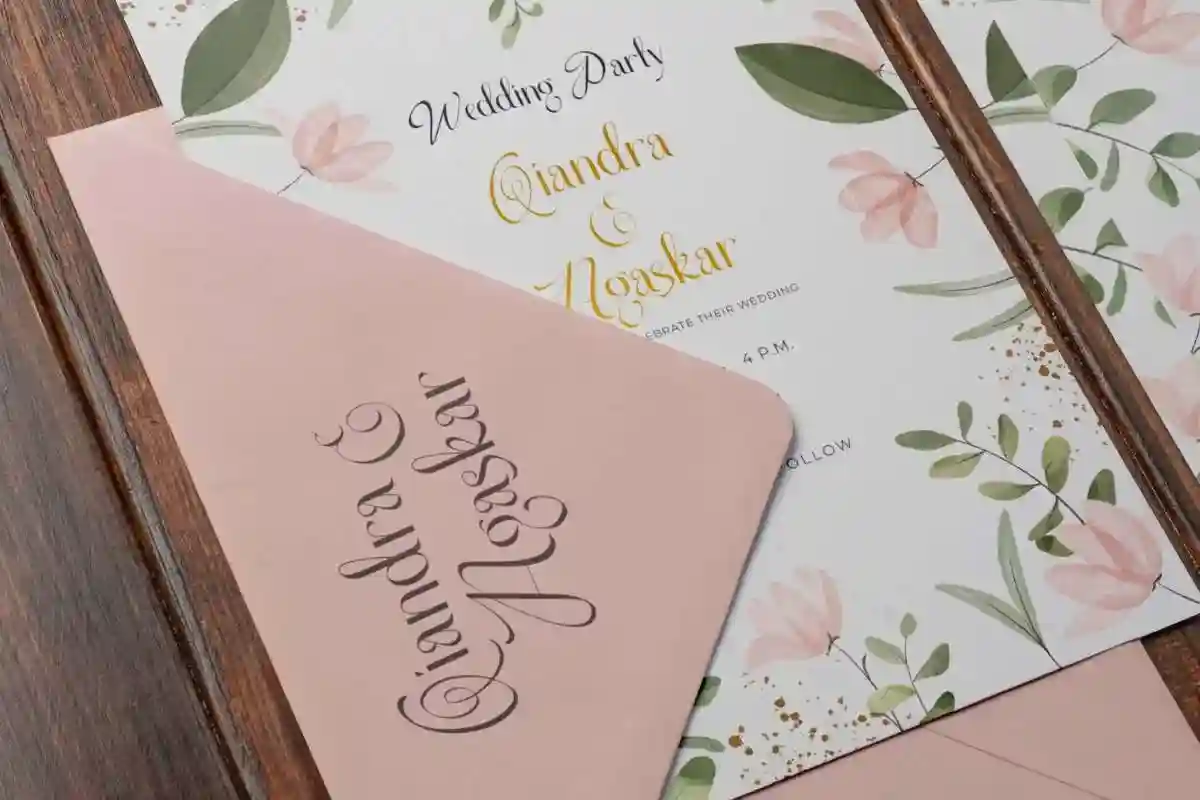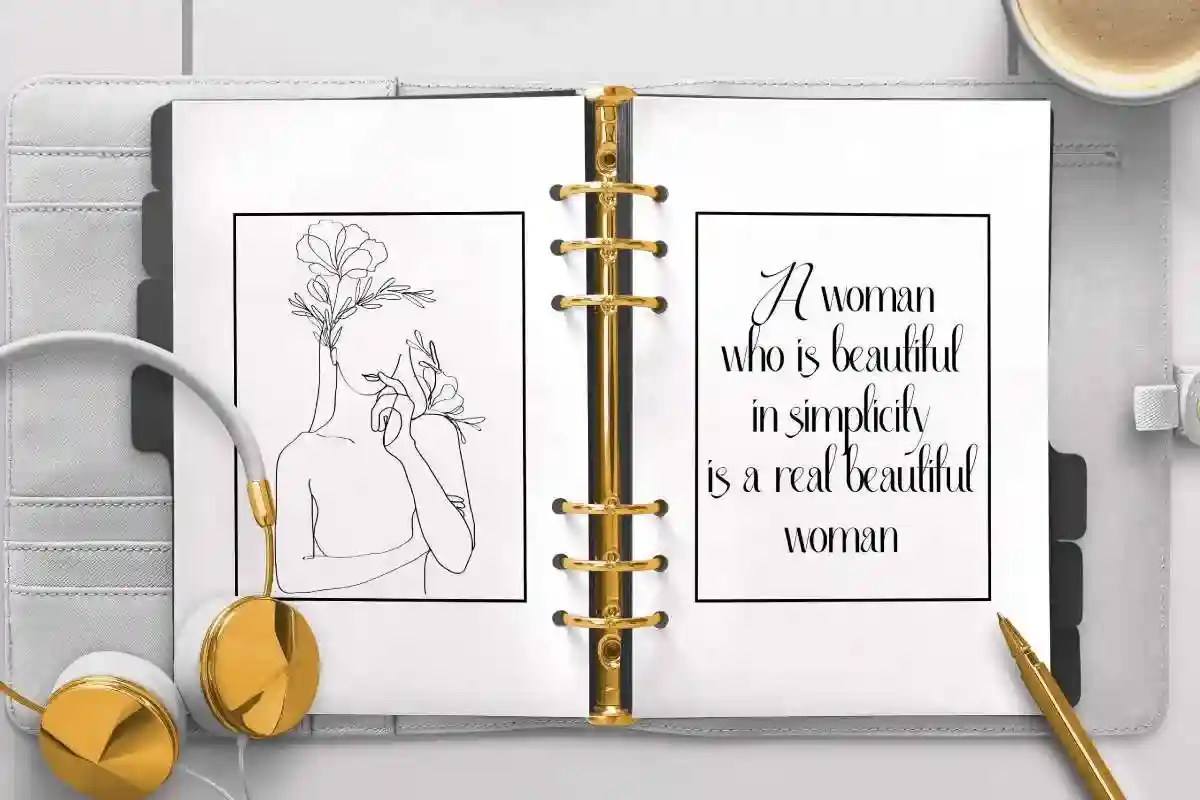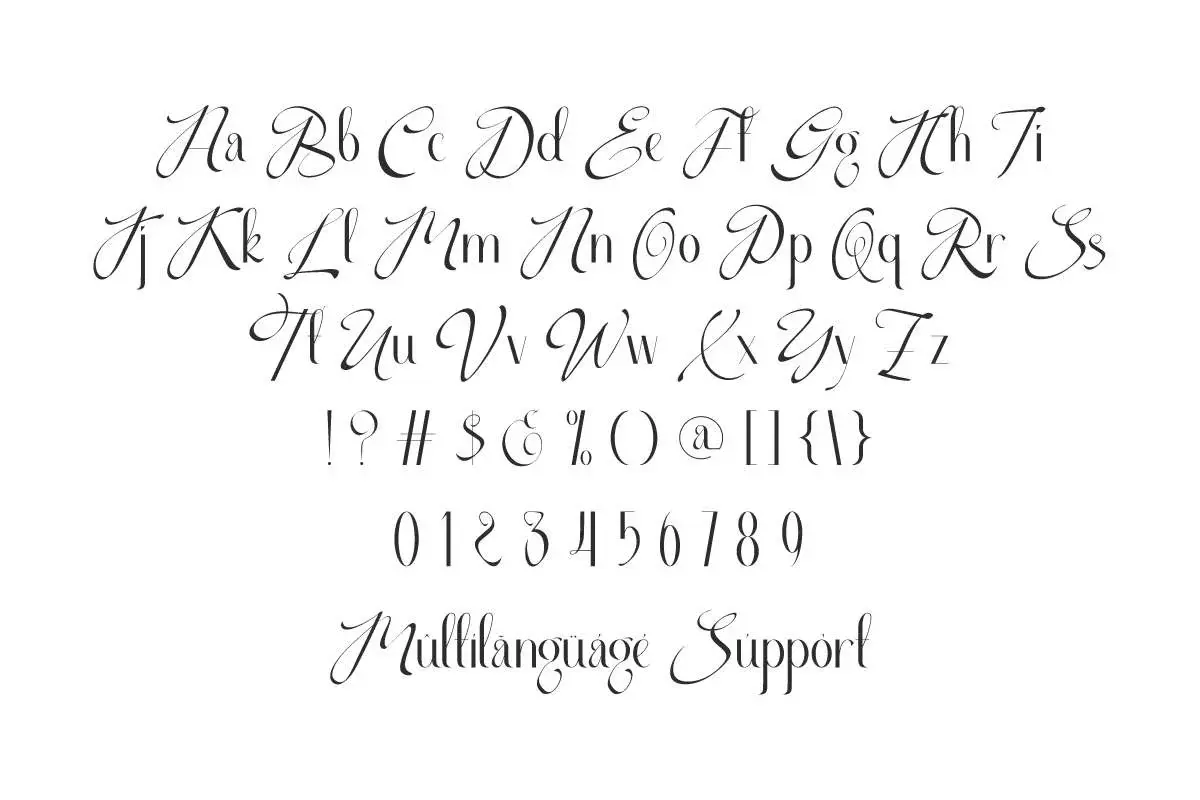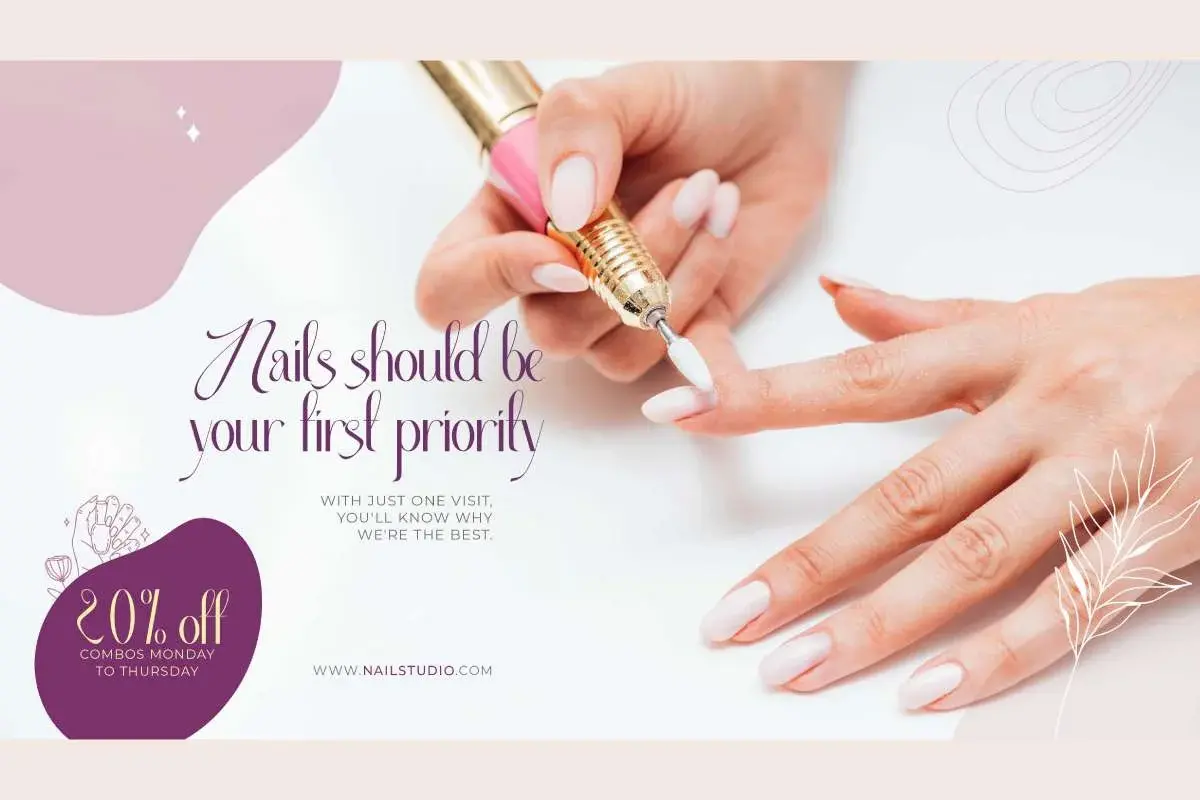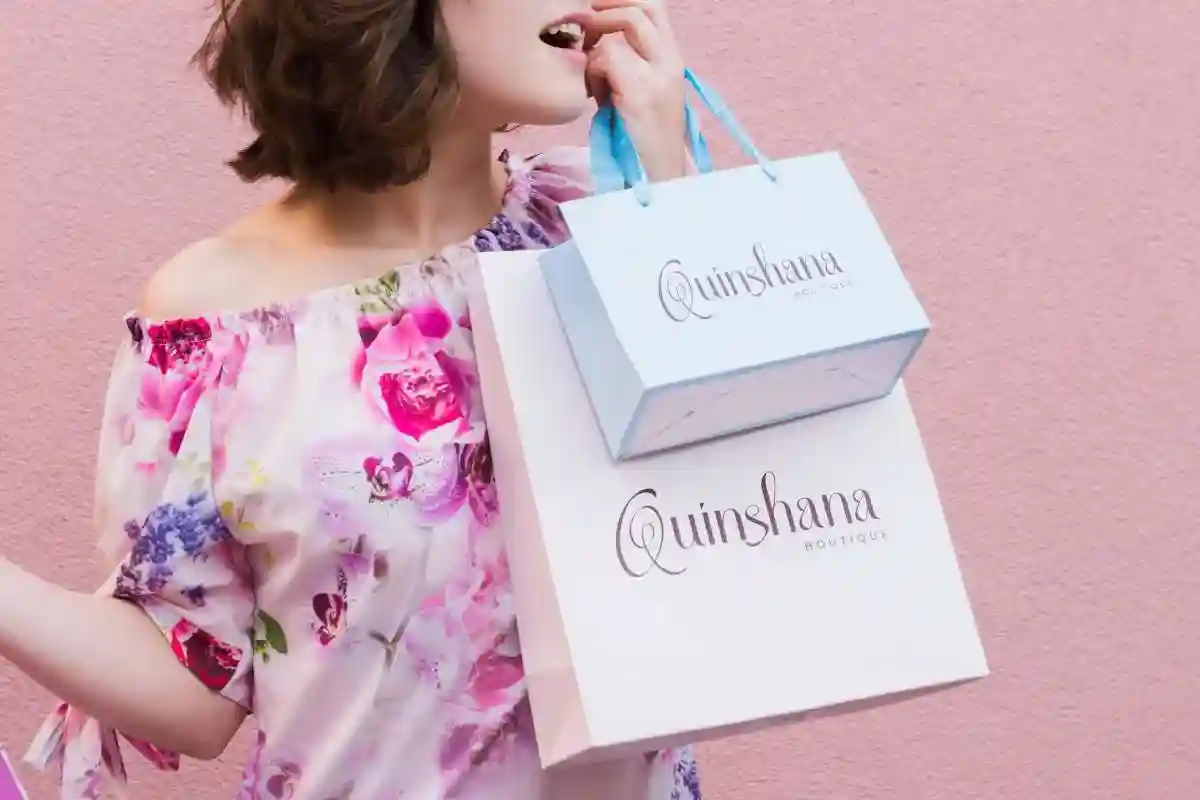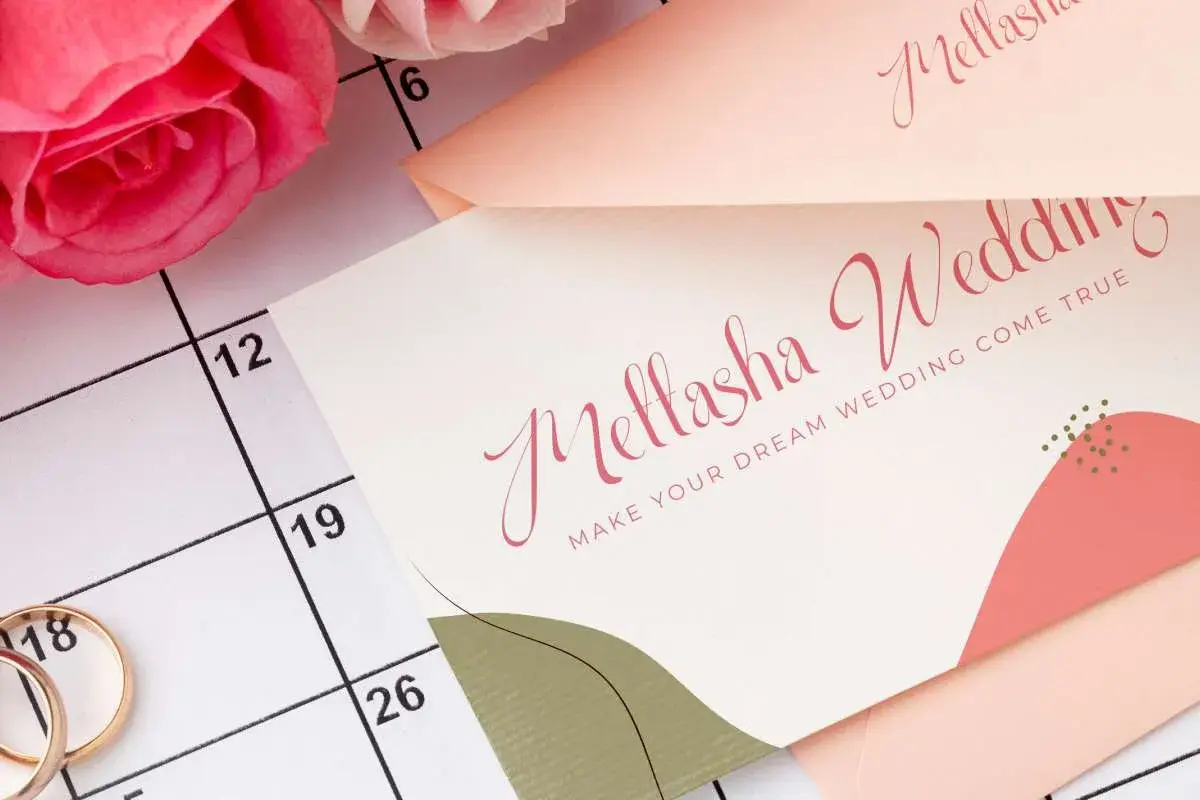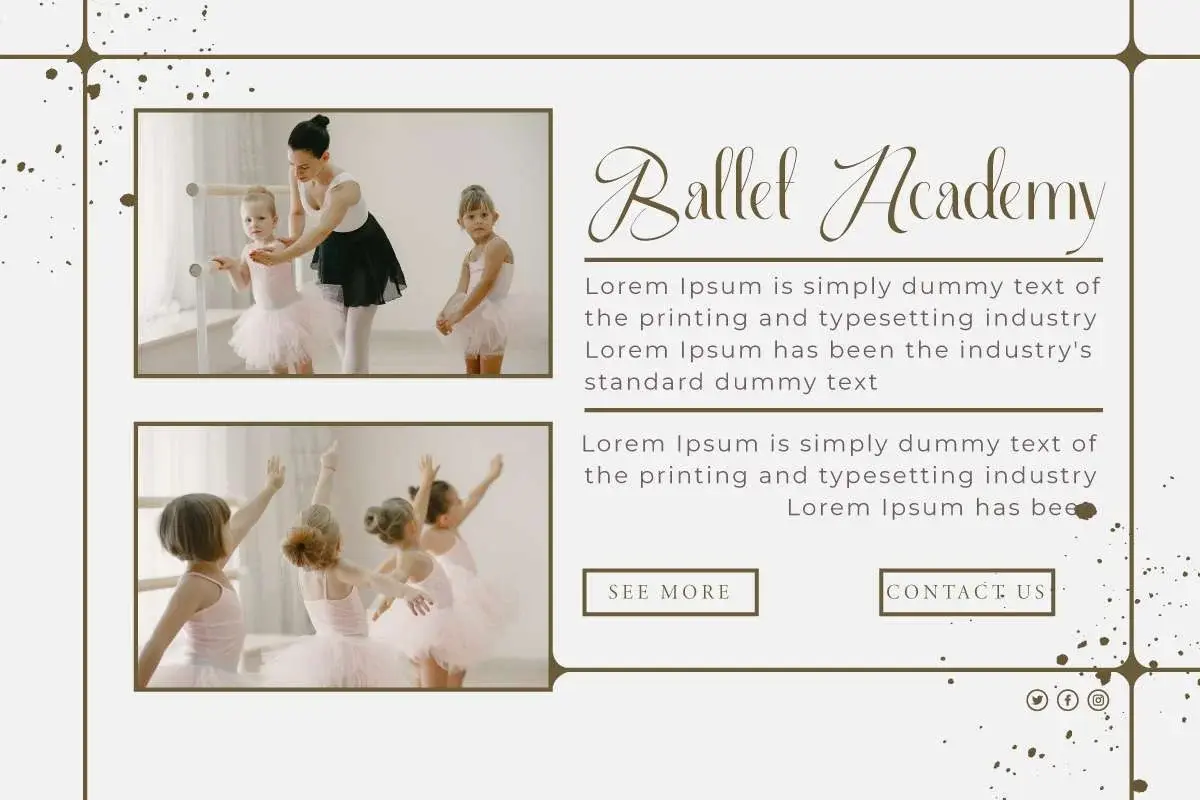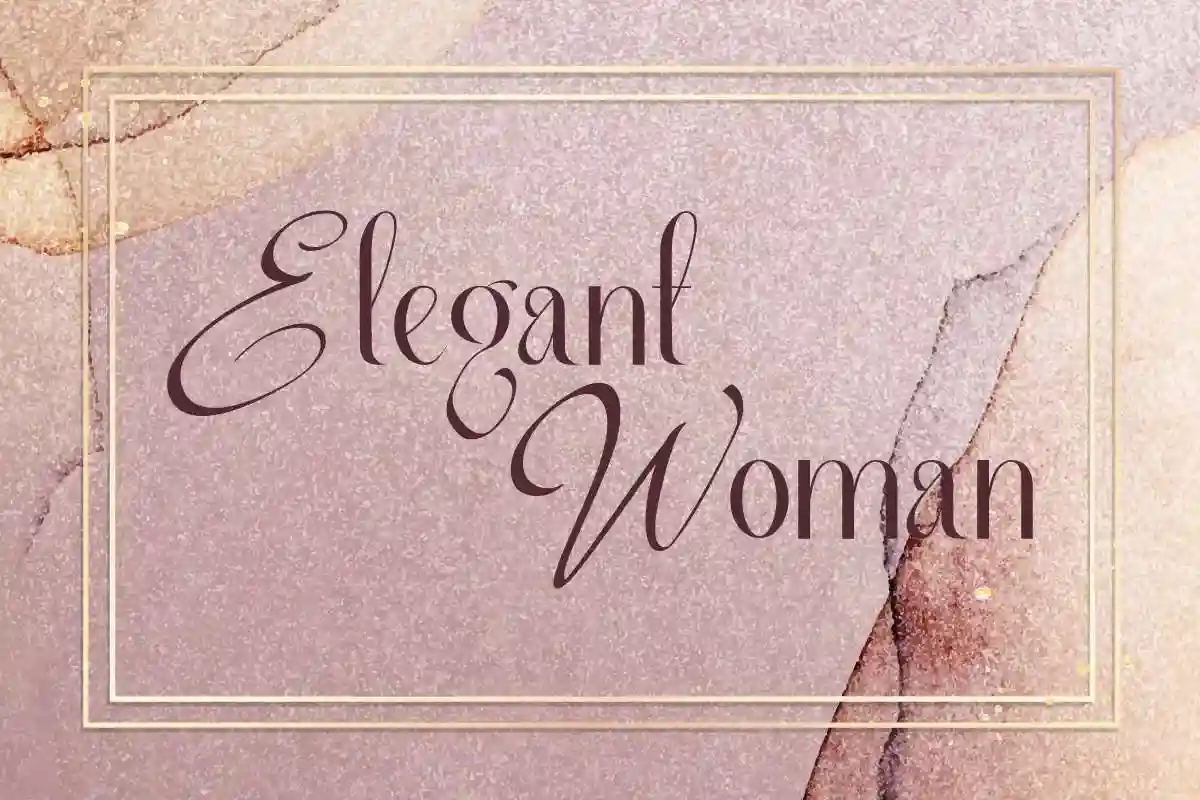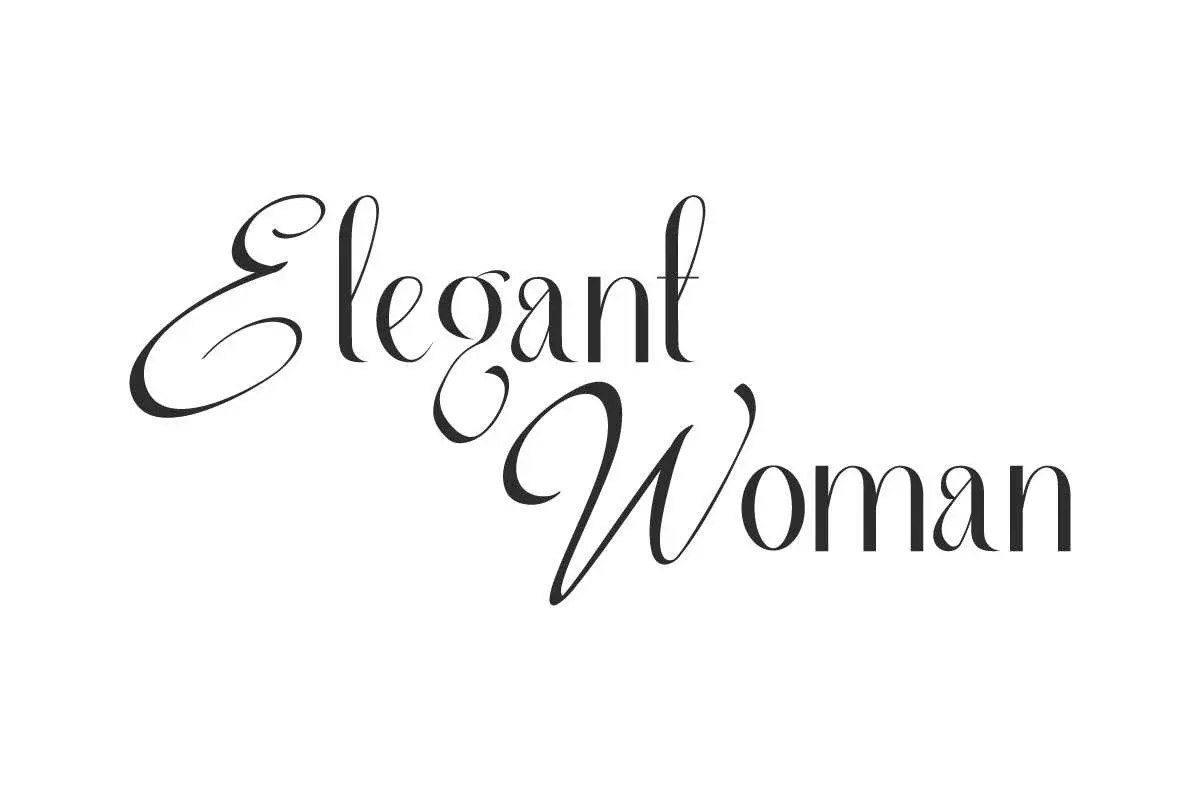
Elegant Woman Font is a classy beautiful display font with charming typefaces. Specially made for luxury themed, like label, skincare, wedding, etc.
Elegant Woman Font is a classy display font with a dazzling shine. It will bring a luxurious touch to your design, such as apps, billboard, brand logo, brochure, business card, catalog, cover, embossed design, flyer, header, invitation, label, magazine catalog, mockup design, packaging design, poster, quote, screen print, signage, social media posts, stationery, sticker, title, website, and any projects.
Elegant Woman Font includes full set of Uppercase and Lowercase Basic Characters with different looks, Number, Punctuation, and Symbol. Beautiful cursive inspired by expensive sans that can elevate your business, such as accessories, architect, boutique, ballet classes, cosmetic, event organizer, fashion designer, florist, furniture, perfume brand, photography, printing, publishing, real estate, restaurant, skincare, spa salon, wedding, writer, and many more.